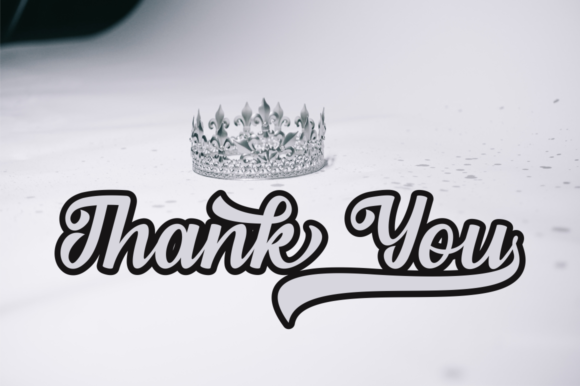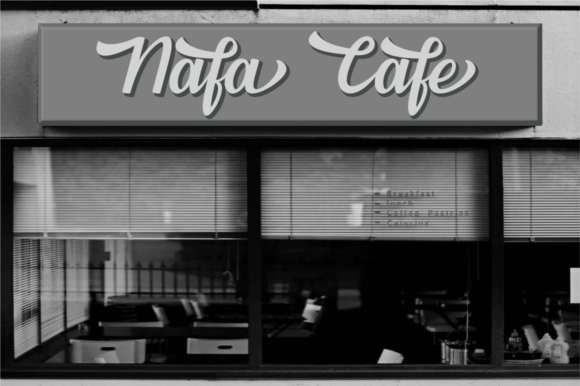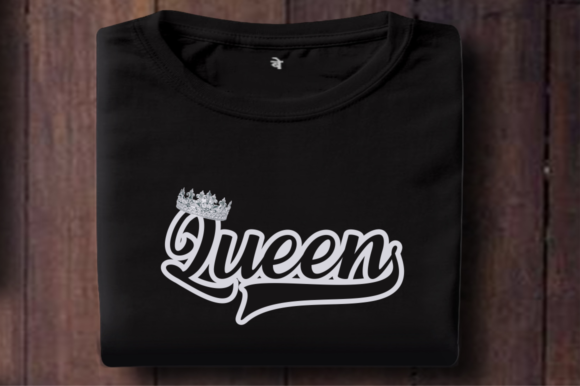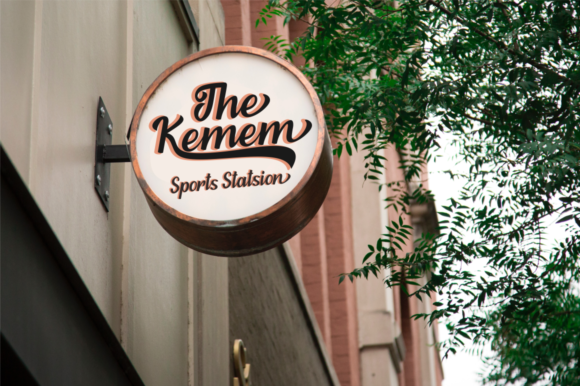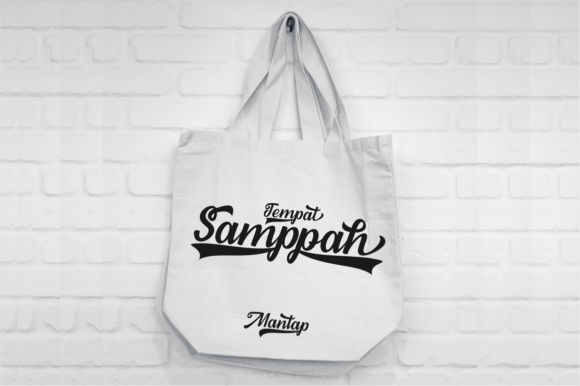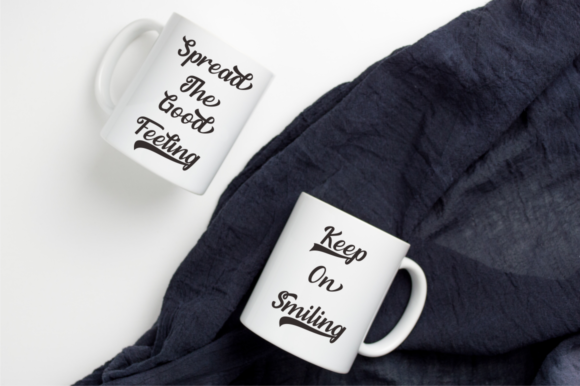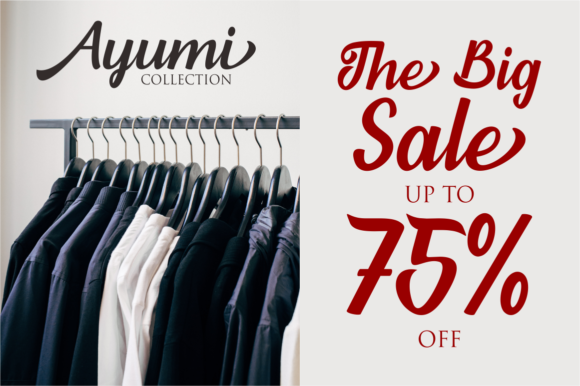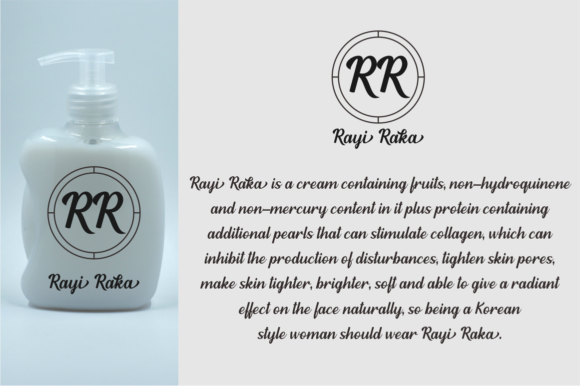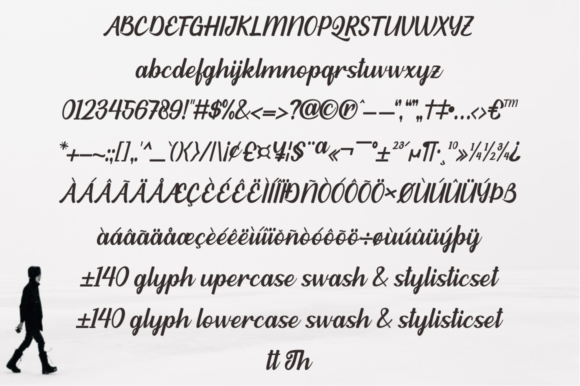
Habibie Font
About Habibie Font
Habibie is a script font that is modern, sweet, and cheerful. This versatile script is great for a variety of applications!